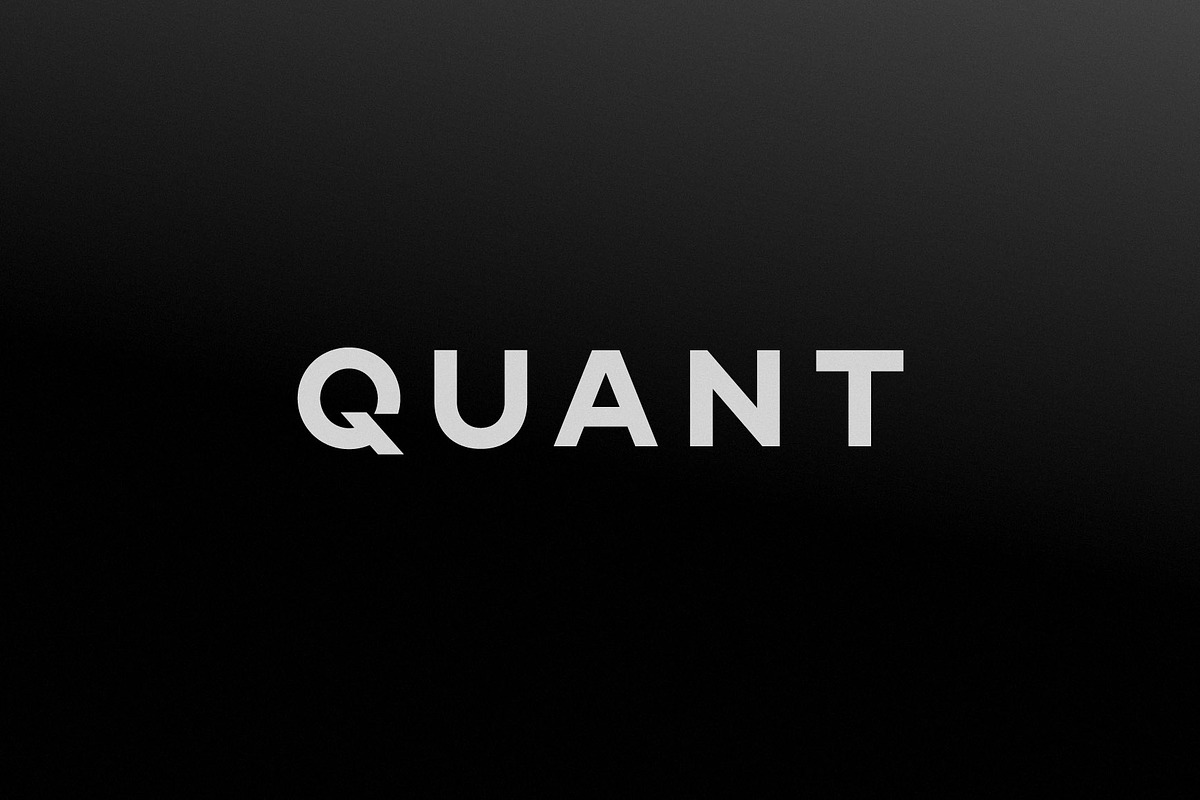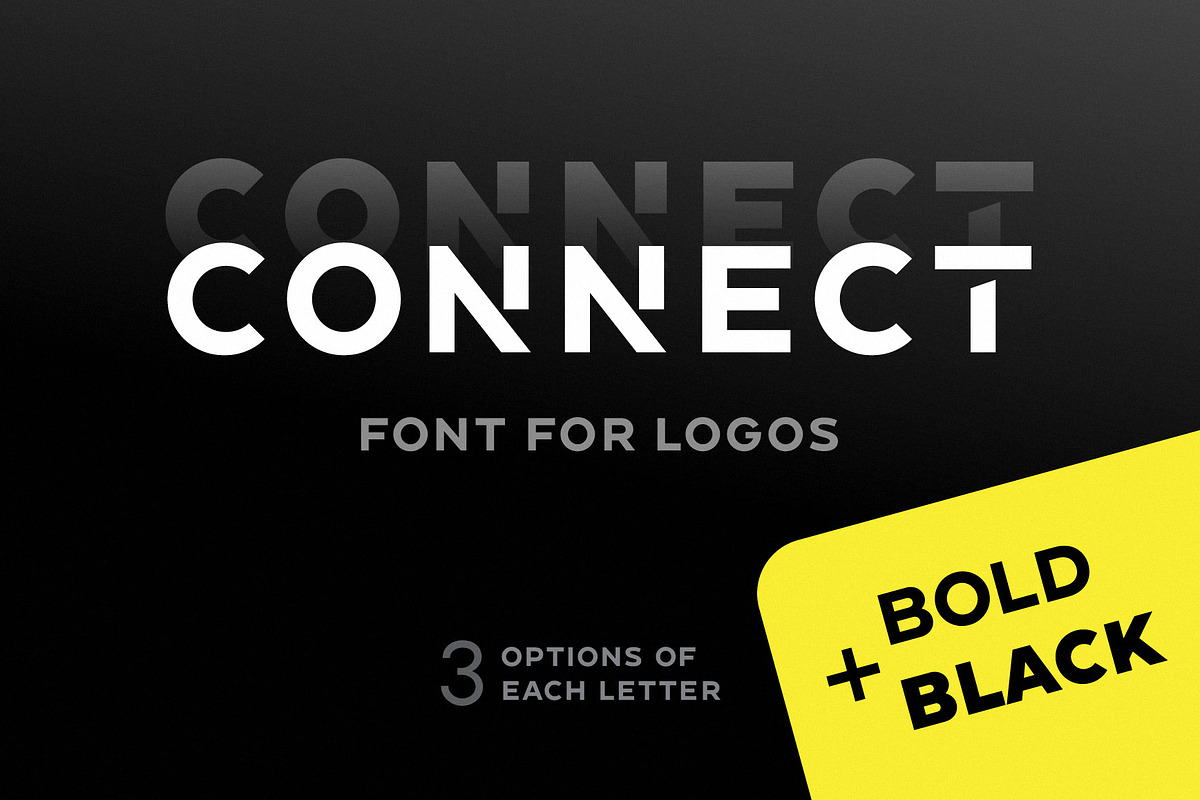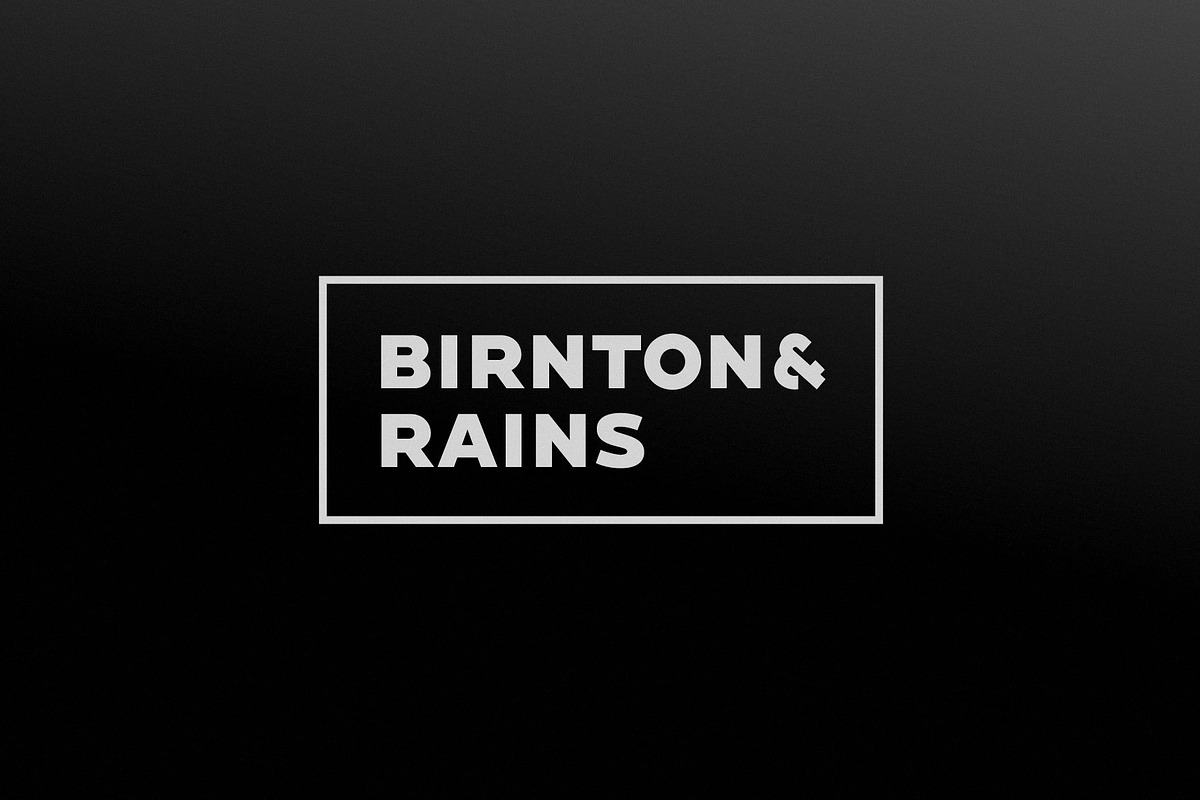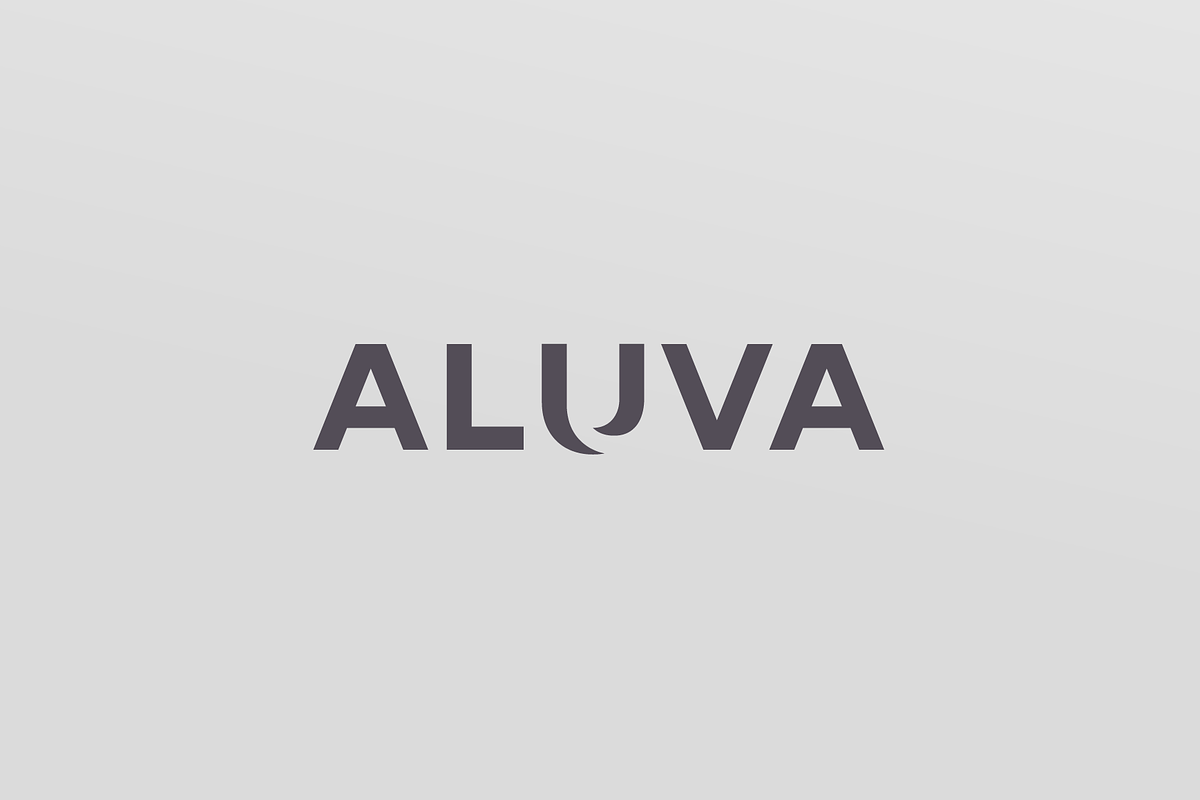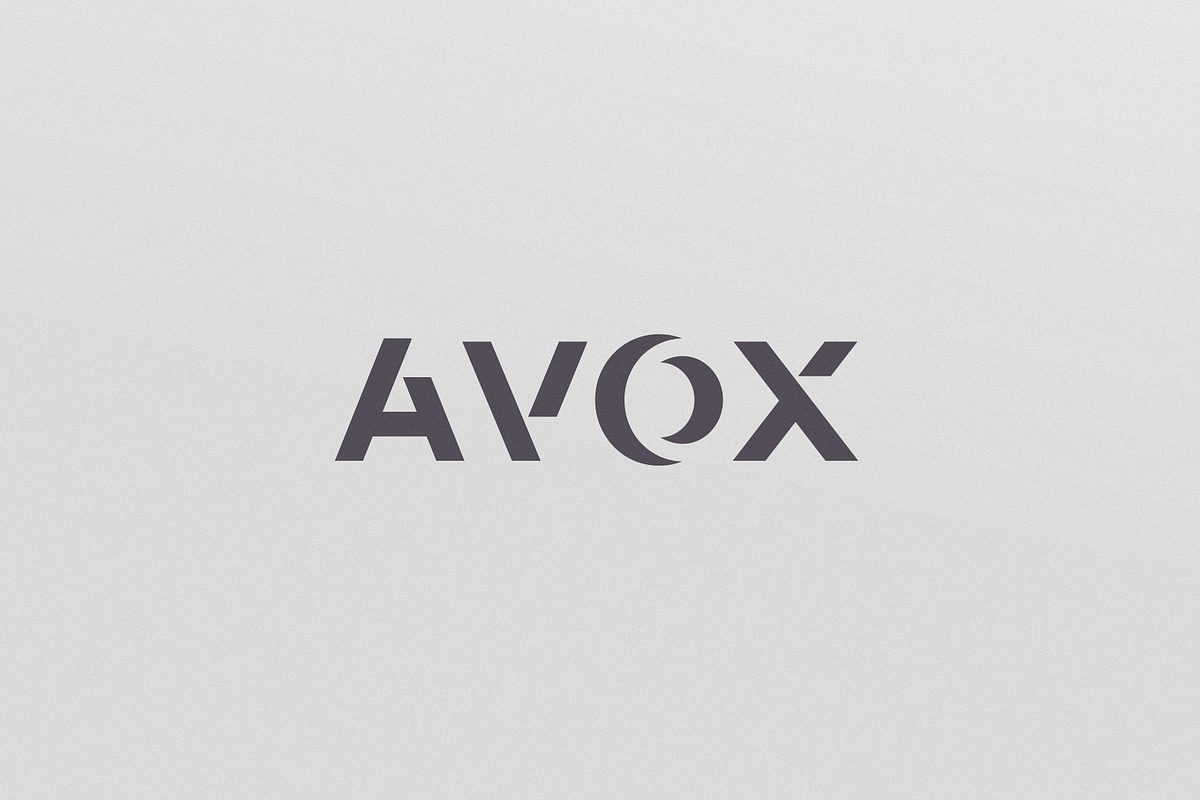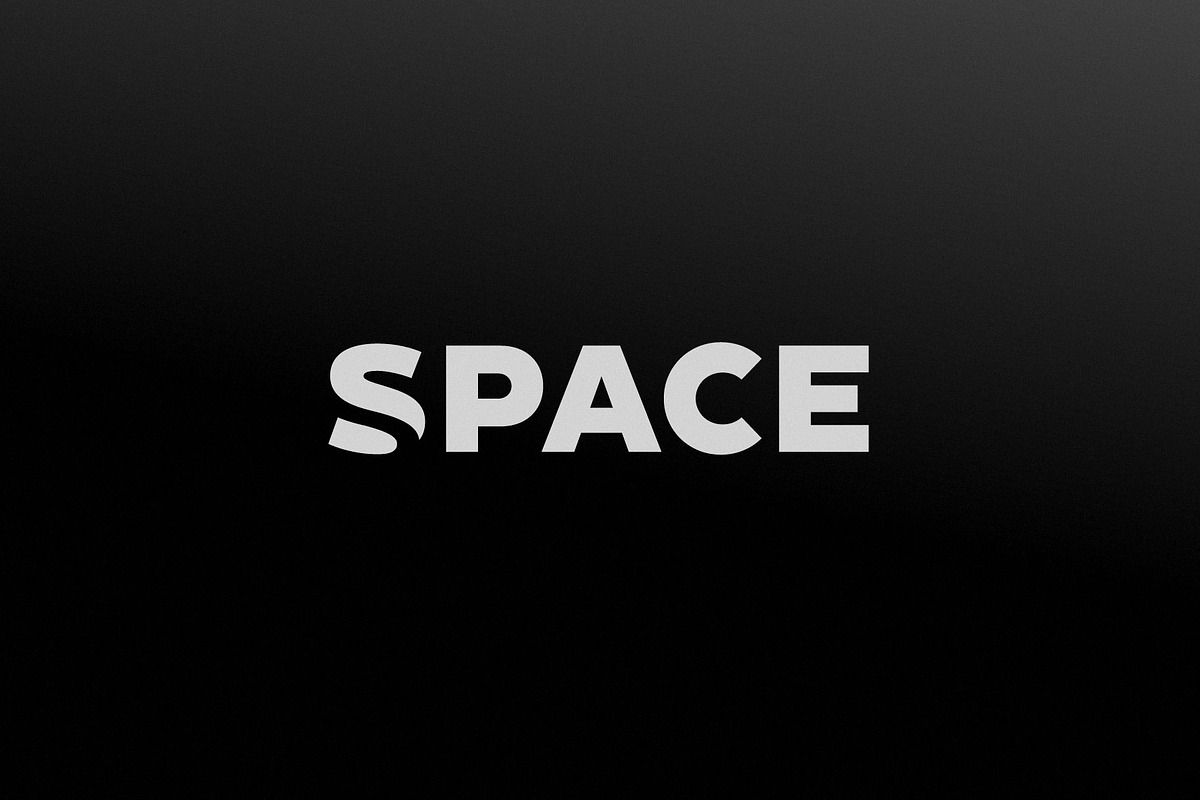
Connect Bold+Black - Font For Logos
RM Connect is a new font for design of minimalistic logos. The font is suitable for creating wordmarks, titles, taglines. Use alternates to emphasize separate letters in your text.
This package contains RM Connect Bold and Black.
Each font contains:
- 3 options of Latin letters
- 3 options of basic multilingual letters
- 3 options of numbers
- extra characters
- punctuation